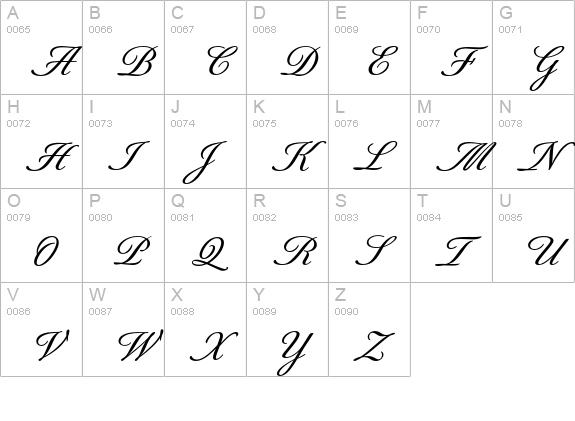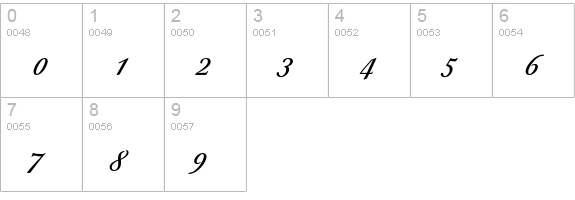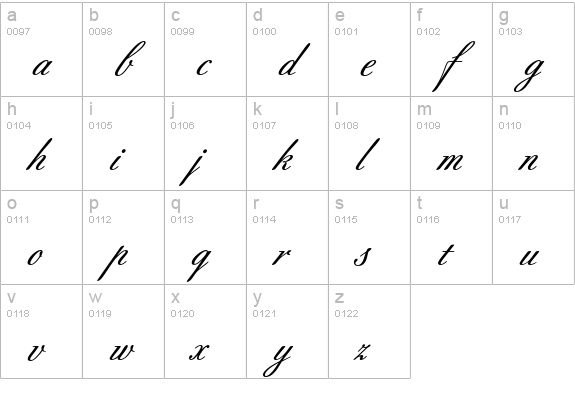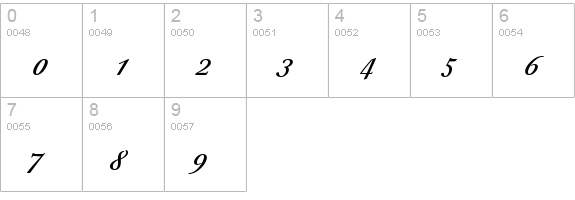
Berthold Script Medium is a balanced, medium-weight variant in the Berthold typeface family \xE2\x80\x94 well suited to sub-headlines, navigation, and balanced editorial work.
Berthold Script Medium font is a beautifully crafted typeface that exudes elegance and sophistication. Its flowing, cursive style adds a touch of class to any design project, making it perfect for invitations, greeting cards, and more. The medium weight strikes the perfect balance between legibility and decorative flair, making it versatile for a variety of applications. What's even better is that Berthold Script Medium font is available for free download at FontsMarket.com. Now you can add a touch of timeless charm to your projects without breaking the bank. Don't miss out on the opportunity to enhance your designs with this exquisite typeface. Download Berthold Script Medium font today and elevate your creations to a whole new level of elegance.